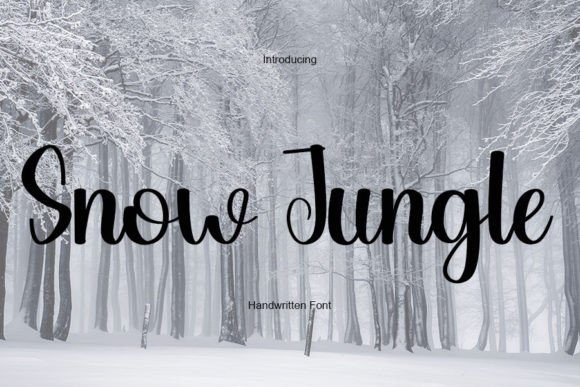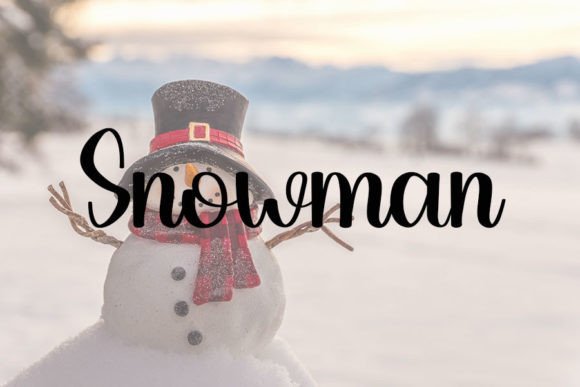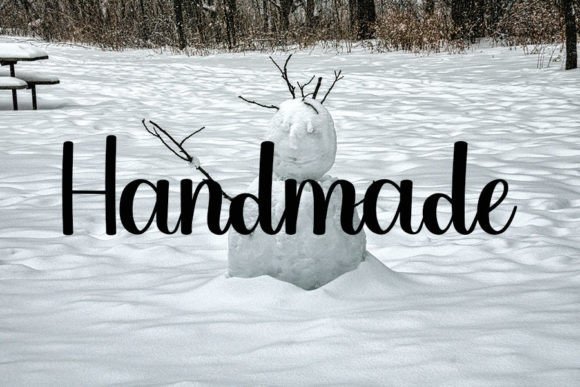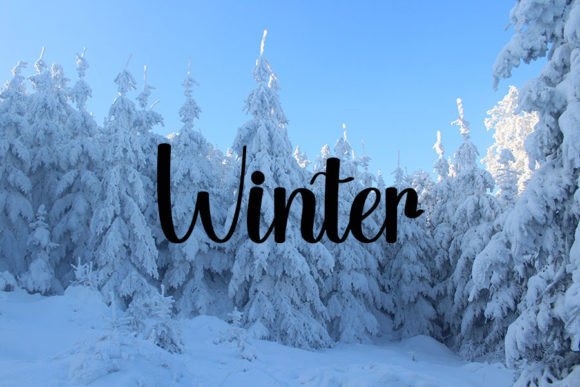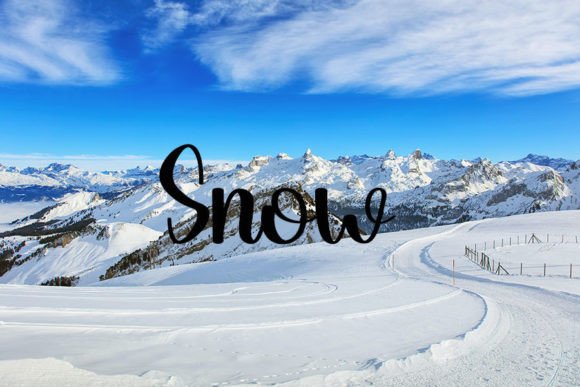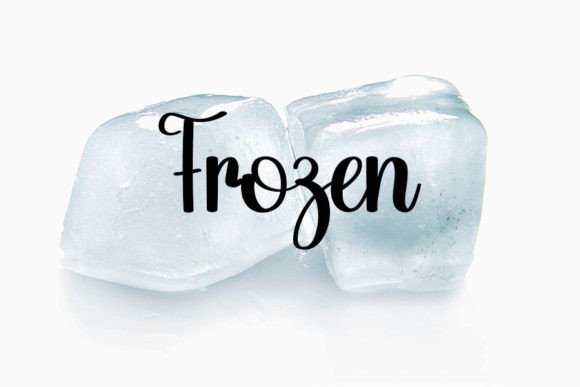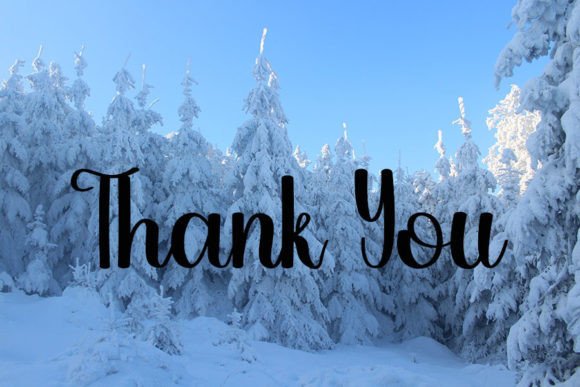
Snow Jungle Font
About Snow Jungle Font
A Neat and Elegant Handwritten Font
The Snow Jungle Font is a beautiful handwritten typeface that combines neatness with an elegant touch. Its clean lines and graceful design make it perfect for a wide range of design projects. Whether you’re creating logos, greeting cards, wedding invitations, or headlines, this font adds a unique, timeless quality to your work.
Perfect for Elegant Branding and Logos
If you’re working on branding or designing a logo, the Snow Jungle Font is an excellent choice. Its neat, flowing script gives your brand a sophisticated and approachable appearance. Perfect for fashion, event planning, or luxury brands, this font enhances your design, making your brand stand out with an elegant handwritten style.
Ideal for Invitations and Greeting Cards
The Snow Jungle Font shines when used for invitations and greeting cards. Whether you’re crafting wedding invitations, thank you cards, or holiday greetings, its elegant and refined style ensures your message is conveyed beautifully. The neat script makes it a great choice for formal and special events, adding a touch of class and sophistication to your designs.
Create Timeless, Stunning Designs
The Snow Jungle Font is described by its distinct and timeless style, which makes it perfect for designs that need to make a lasting impression. Whether you’re working on a personal project or a professional one, this font brings a unique elegance to every creation. Its simple yet stunning design ensures your projects are both beautiful and memorable.
Versatile for Multiple Creative Projects
One of the key benefits of the Snow Jungle Font is its versatility. It can be used for a variety of creative projects, including logos, branding materials, flyers, social media graphics, and more. Whether you’re designing for business, events, or personal projects, this font adapts beautifully to any creative need, ensuring your designs always look polished and professional.
Easy to Use and Legible
The Snow Jungle Font is not only stylish but also highly legible. Its neat design ensures that your content is readable, even when used for longer text passages. Whether you’re creating a long-form invitation or a short tagline, this font strikes the perfect balance between beauty and clarity. Its clean lines ensure your designs remain professional and approachable.
Add an Elegant Touch to Every Design
If you want to add a personalized handwritten touch to your designs, the Snow Jungle Font is the perfect choice. Its elegant, timeless style ensures that your designs stand out, whether you’re working on wedding invitations, logos, branding materials, or greeting cards. Enhance your projects with the beauty and sophistication of this stunning handwritten font.